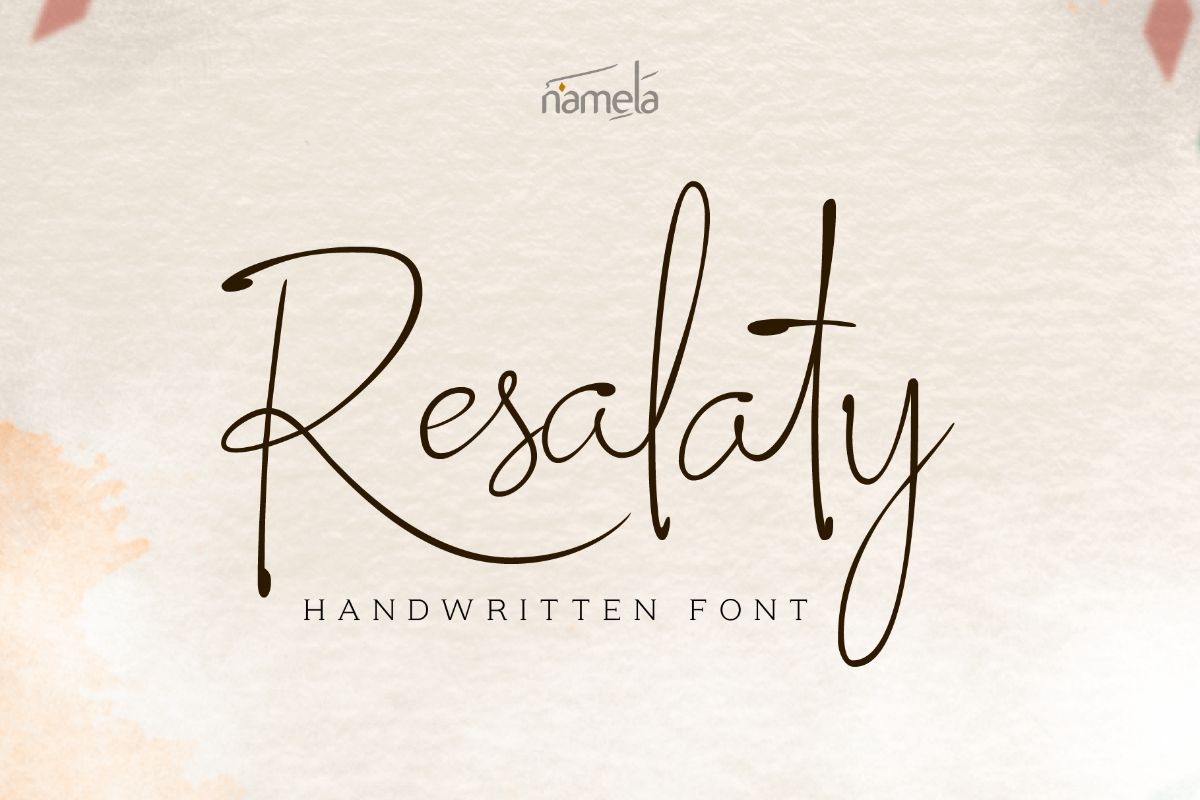
Resalaty Regular
Resalaty Font - An Elegant Signature Handwritten Script Typeface for Personal Branding & Refined Design Some designs need to do more than look good—they need to feel something. Resalaty Elegant Signature Handwritten Script Font is one of those rare typefaces that achieves exactly that. As a handwritten script font, Resalaty delivers the flowing, natural quality of genuine handwriting with an elegant and deeply personal character. Whether you're designing a wedding invitation, building a brand id